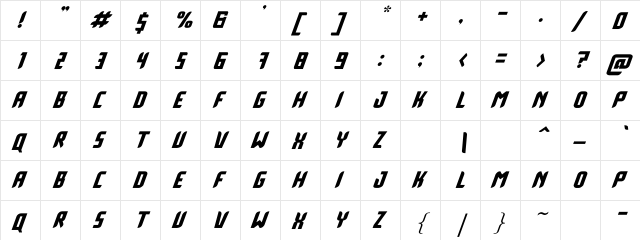
White Systemattic Duo Italic Regular
Design Context for White Systemattic Duo Italic Typeface
White Systemattic Duo Italic offers clean, dependable letterforms without strong stylistic allegiance, making it a practical choice for designers who need flexibility. Its italic angle brings a sense of urgency and motion to the letterforms.
Pro Tip: Try White Systemattic Duo Italic for annotation and caption copy alongside an upright companion — the contrast in angle creates a dynamic but ordered typographic system.